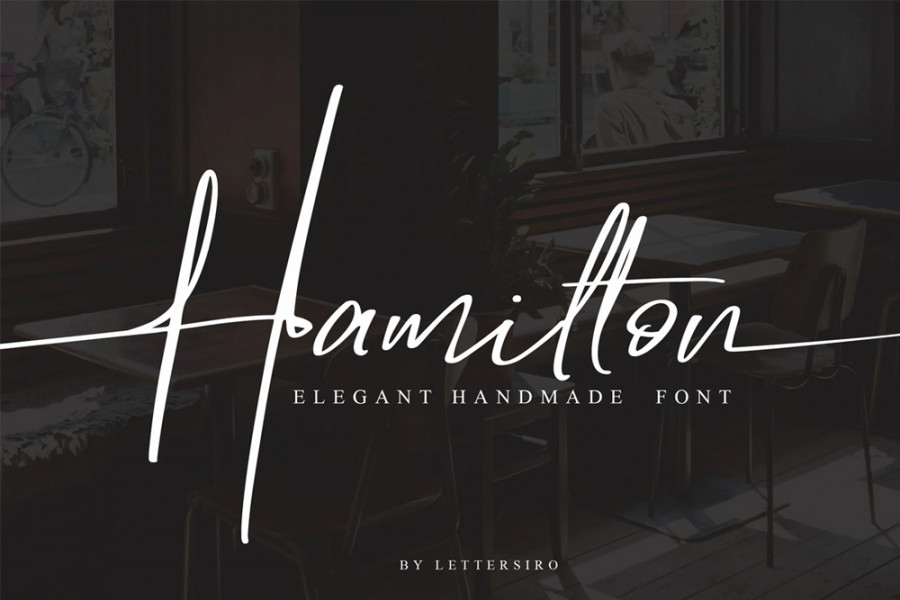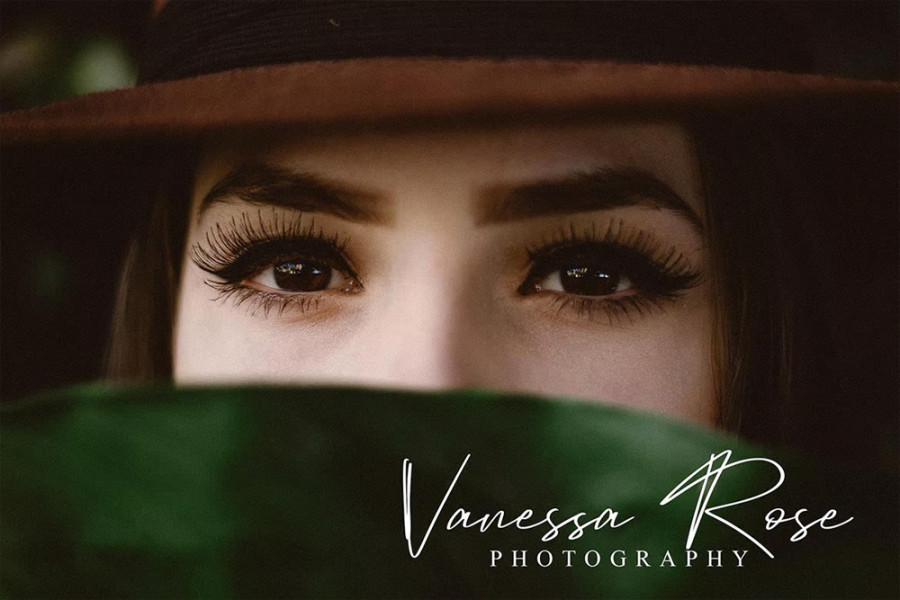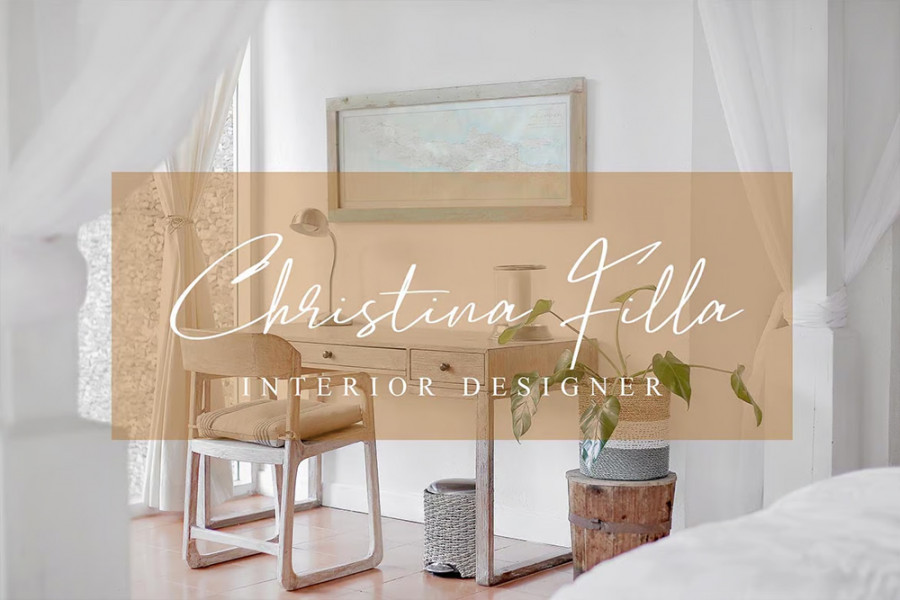
Hamilton - Elegant Signature Font
Hamilton – Elegant Signature Font is a stylish and sophisticated typeface, perfect for branding, logos, invitations, and personal projects. This beautifully crafted font offers a natural handwritten feel, adding a personal and elegant touch to your designs. The package includes a high-quality OTF file, ensuring compatibility with a wide range of design software. Hamilton’s smooth curves and balanced strokes make it ideal for creating luxurious branding, modern wedding invites, stylish social media posts, and more. Elevate your creative projects with the timeless elegance of Hamilton, a signature font designed to leave a lasting impression.